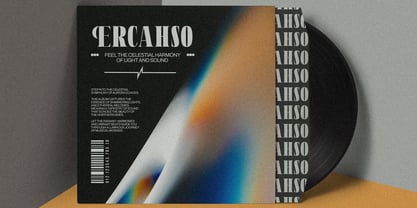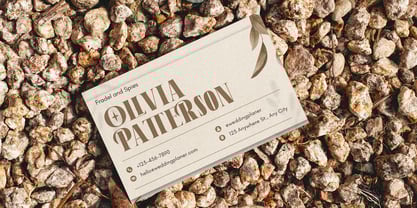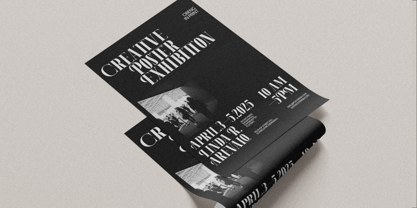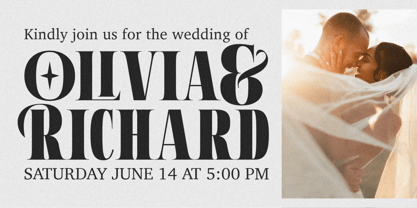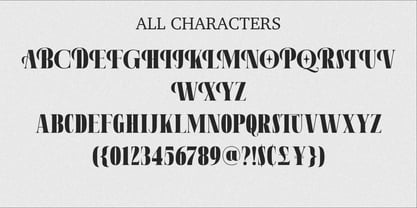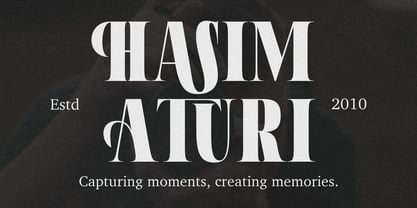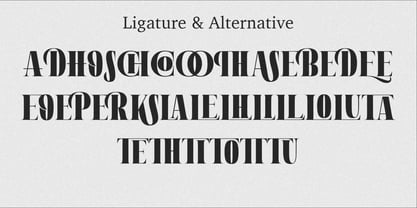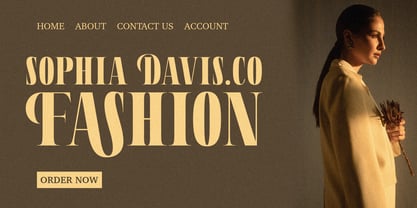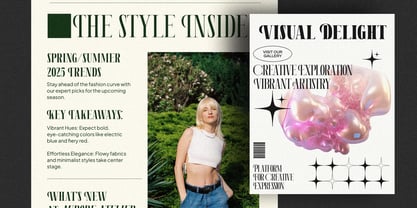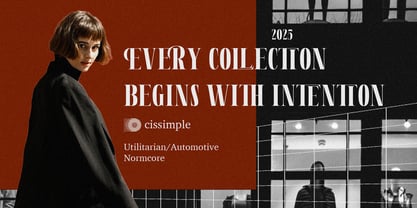
Aerdos
Aerdos: A Statement of Bold Elegance
Aerdos is a modern serif display font designed to make a powerful, elegant, and authoritative statement. With its dramatic stroke contrast and thick, commanding serifs, this typeface is crafted to capture attention and infuse your designs with a touch of timeless sophistication.
Key Features:
• 18 Versatile Weights: From the delicate Thin to the impactful Black, Aerdos comes in 18 styles, including full italics for each weight. This comprehensive range provides the flexibility to create a cohesive typographic hierarchy, from striking headlines to refined body text.
• Strong and Balanced Anatomy: Each letter is built with a confident structure and clean lines, ensuring exceptional legibility and a harmonious visual flow.
• Premium Applications: Aerdos is the perfect choice for projects that demand a luxurious and professional aesthetic. It excels in branding for fashion, high-end products, editorial layouts, and exclusive marketing materials.
More than just a font, Aerdos is a tool to make a lasting impression and elevate your design to a new level of class.